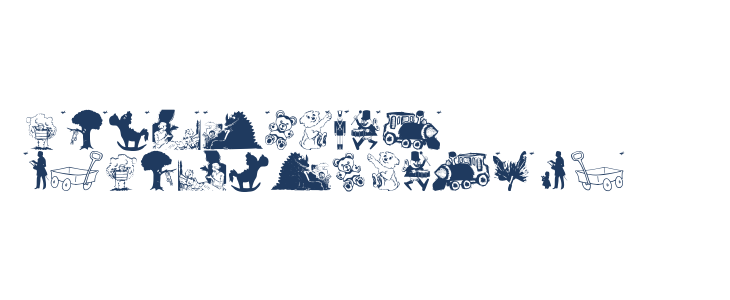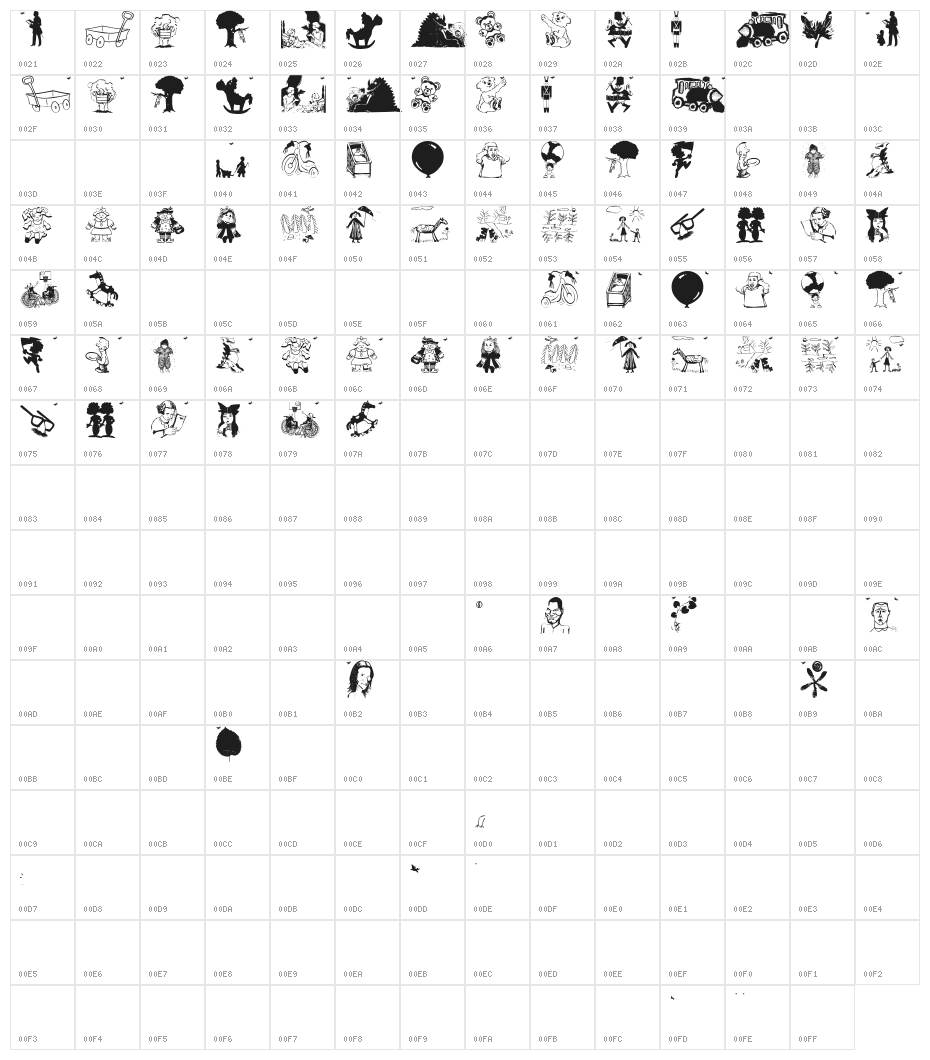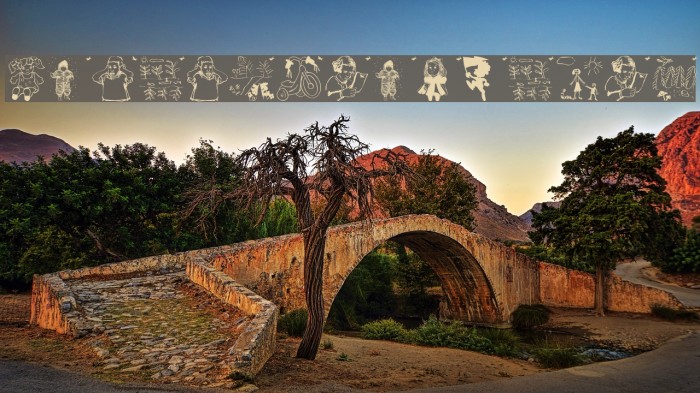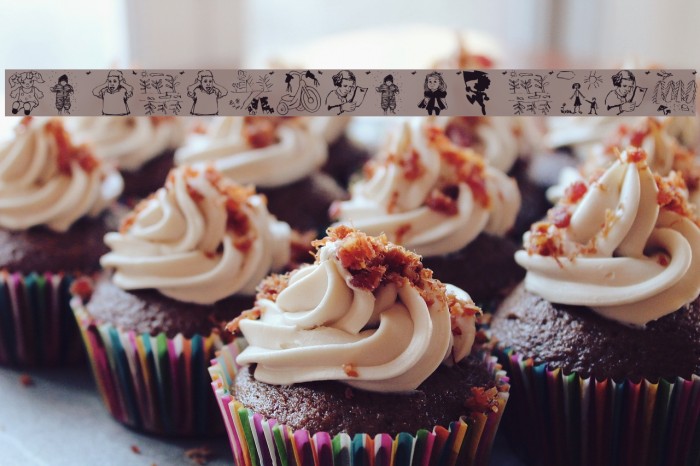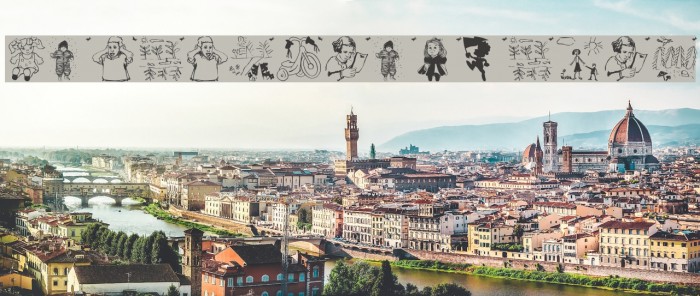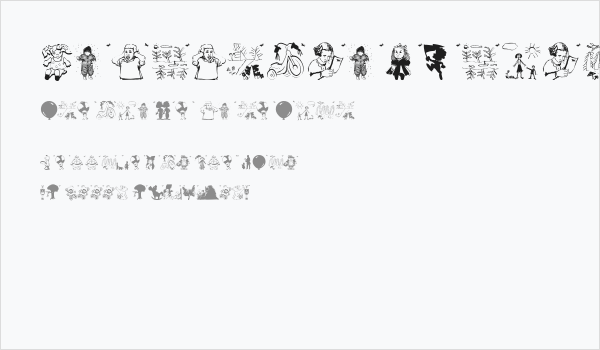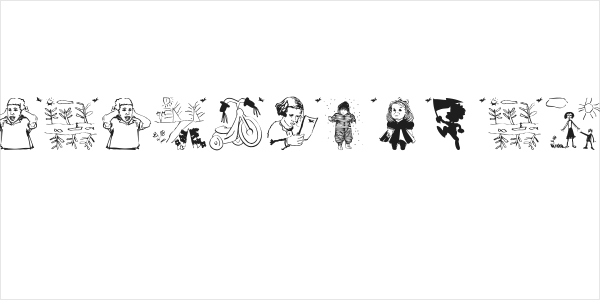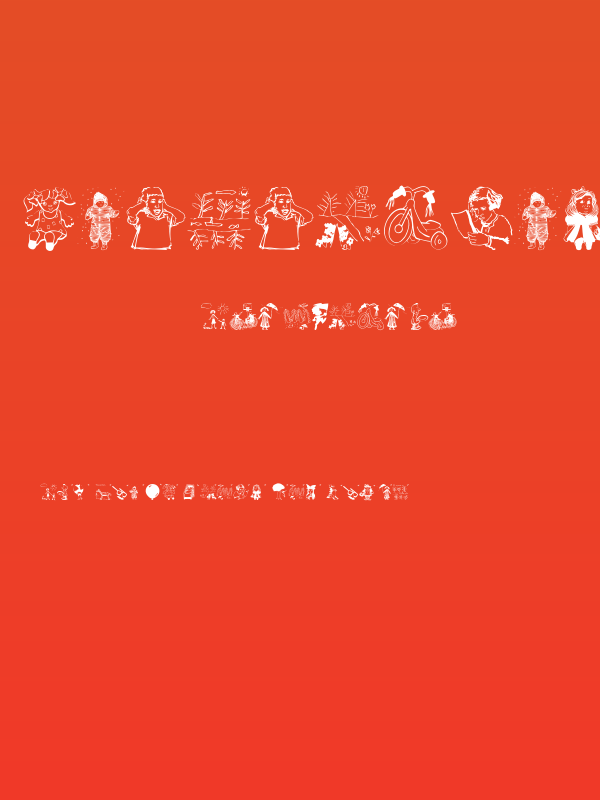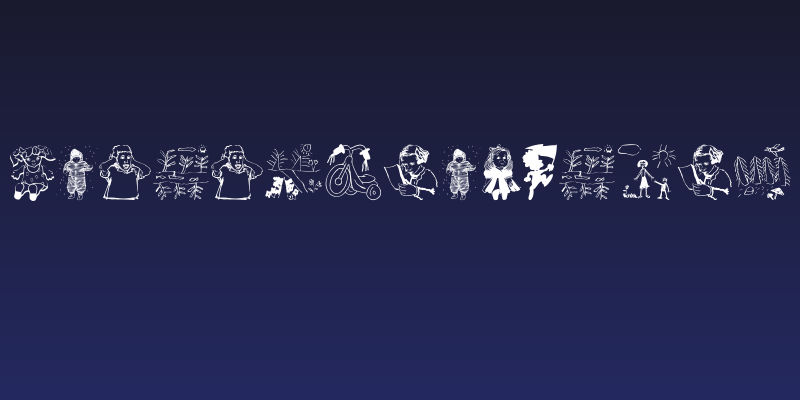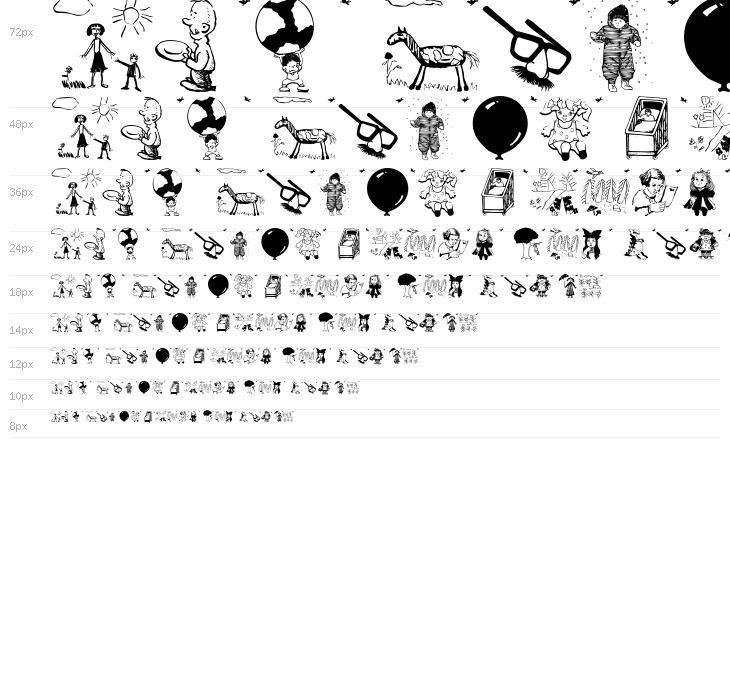
KidsDrawingsTwo Font
KidsDrawingsTwo Description
| Overall Style | Playful, Whimsical, Childlike |
| Use Case | Decorative elements, icons, embellishments for children's content |
| Proposed Projects | Children's books, educational materials, party invitations, scrapbooking, classroom decorations, playful branding. |